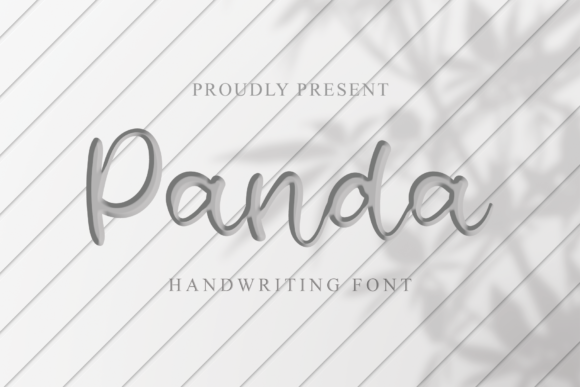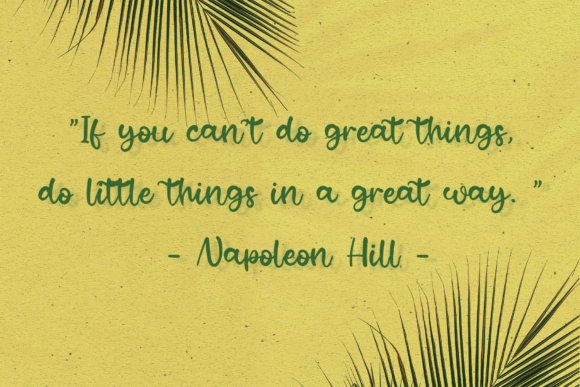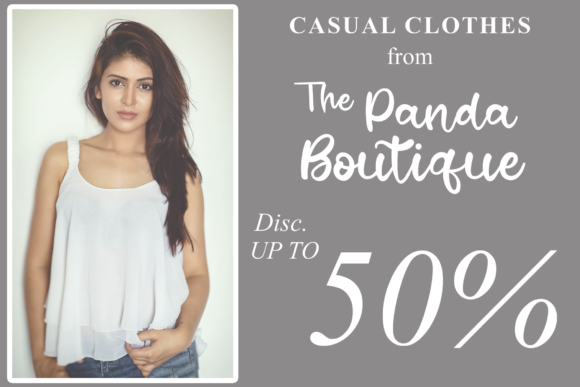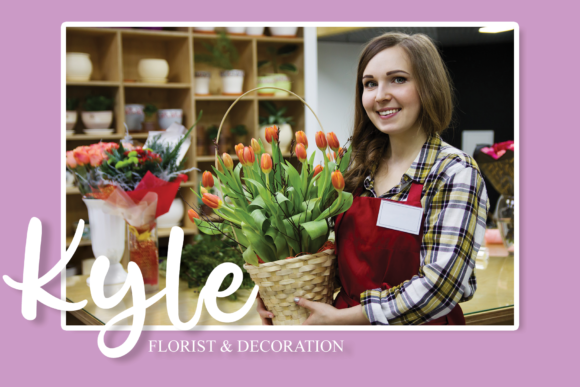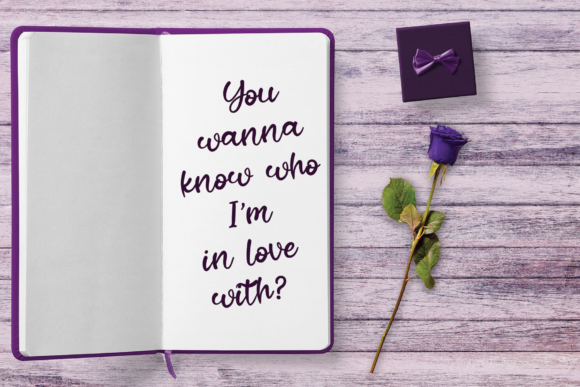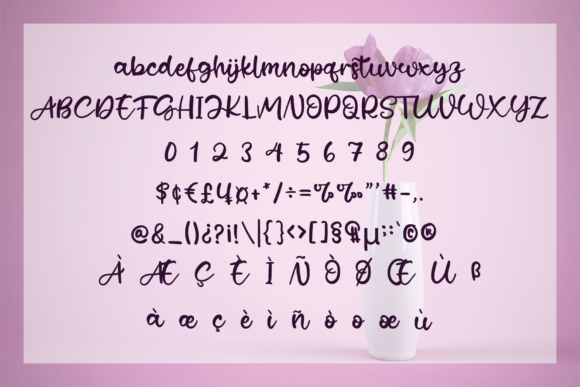
Panda Font
About Panda Font
Panda is a fashionable, round lettered script font. This font is neatly crafted and highly detailed. Whatever the topic, this font will be a wonderful asset to your font library, as it has the potential to enhance any creation.